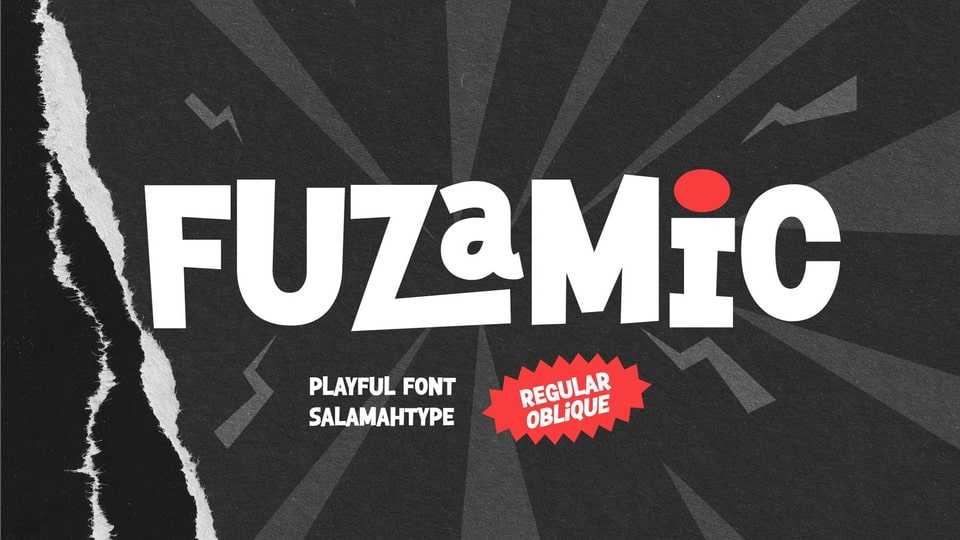
Download Fuzamic font, a fun and playful comic-style typeface designed to bring joy and personality to your creative projects. Inspired by the energetic look of comic books and hand-drawn lettering